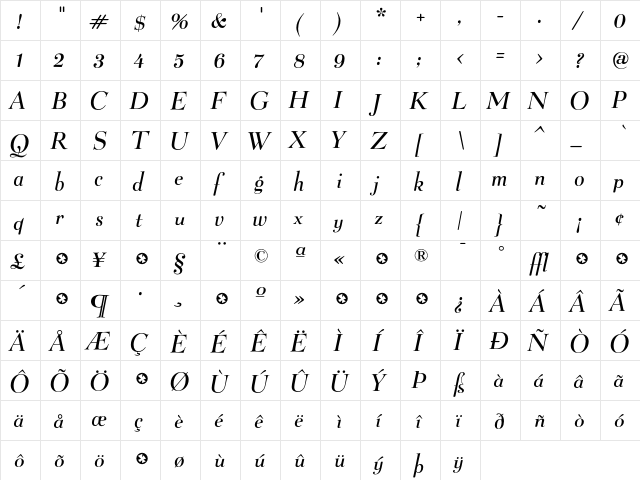
Belucian DemiBoldItalic Font Preview
Belucian DemiBoldItalic
Design Context for Belucian Typeface
Belucian offers clean, dependable letterforms without strong stylistic allegiance, making it a practical choice for designers who need flexibility. Its italic angle brings a sense of urgency and motion to the letterforms. The heavy weight commands attention and anchors typographic hierarchies.
Pro Tip: Use Belucian for emphasis, pull quotes, and subheadings where its slanted energy can add rhythm to the layout.